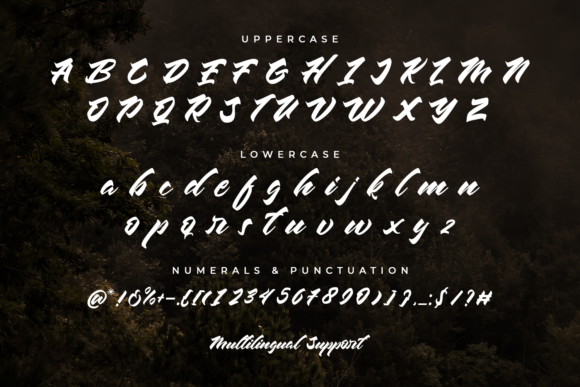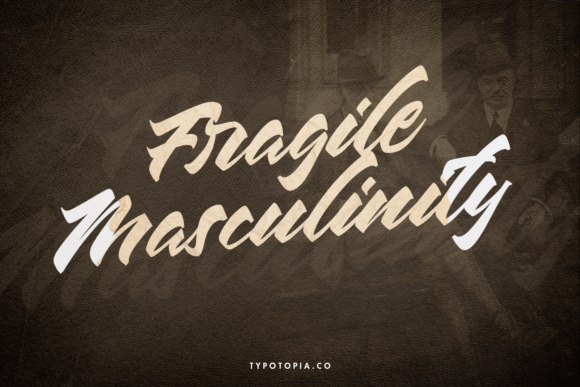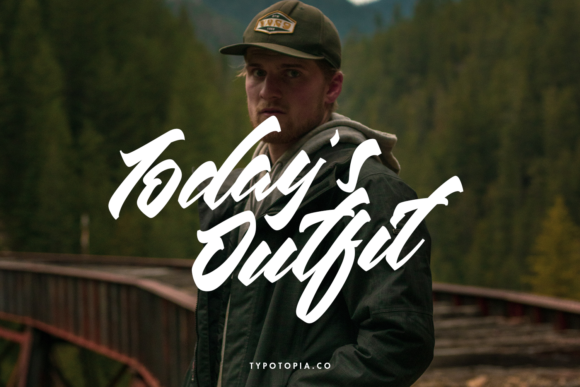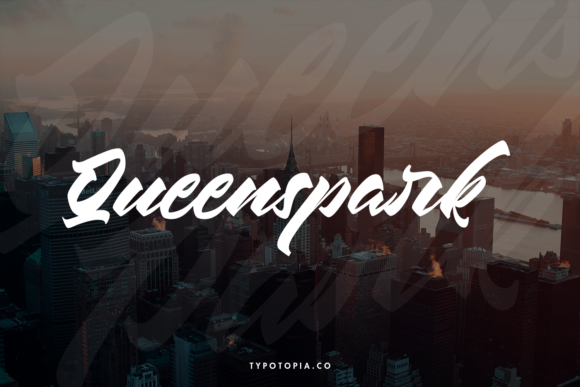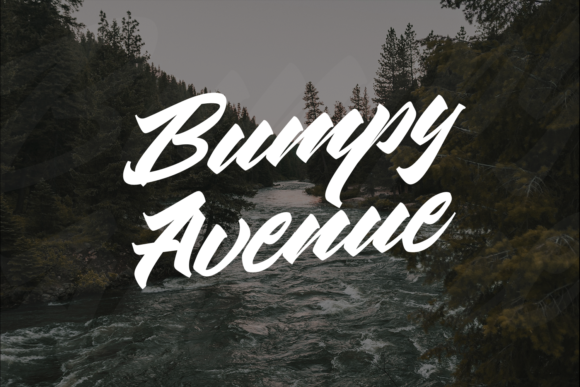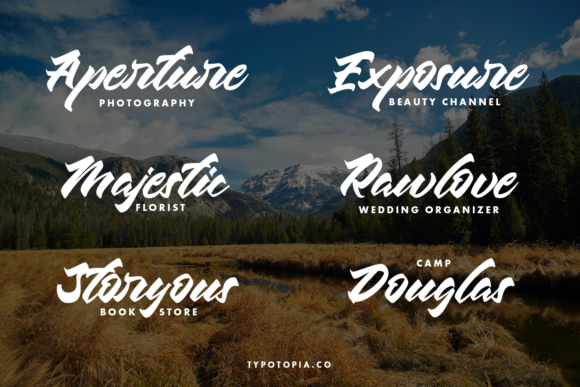
Discover the Elegance of Chesnut Font: Elevate Your Designs to New Heights
Are you on the hunt for a font that exudes sophistication, elegance, and a touch of modern flair? Look no further than the stunning Chesnut Font. This exquisite handwritten font is meticulously crafted to capture the essence of classy calligraphic influences while infusing a contemporary twist. In this article, we’ll delve into the world of Chesnut Font, exploring its unique features, and how it can elevate your design projects to unprecedented levels.
The Birth of Chesnut Font: A Masterful Design
Chesnut Font is the brainchild of talented designers who sought to create a typeface that would seamlessly blend traditional calligraphy with modern sensibilities. The result is a font that is not only visually stunning but also remarkably versatile. Whether you’re working on a branding project, crafting a wedding invitation, or designing a logo, Chesnut Font is poised to become your go-to choice.
What Makes Chesnut Font So Special?
So, what sets Chesnut Font apart from other fonts in the market? Here are a few key features that make it a standout:
- Classy Calligraphic Influences: Chesnut Font boasts elegant, flowing lines that evoke the sophistication of traditional calligraphy.
- Contemporary Twist: Despite its classic roots, Chesnut Font feels refreshingly modern, making it perfect for designers who want to create something new and exciting.
- Handwritten Charm: The font’s handwritten nature adds a touch of warmth and personality to any design, making it ideal for projects that require a more personal touch.
- Versatility: Chesnut Font is incredibly versatile, suitable for a wide range of applications, from logos and branding to invitations, packaging, and more.
Why Designers and Crafters Love Chesnut Font
Chesnut Font has quickly become a favorite among designers and crafters, and for good reason. Here are a few reasons why:
- Ease of Use: Chesnut Font is incredibly easy to use, even for those who are new to design. Its clean lines and intuitive flow make it simple to work with, saving you time and effort.
- Customization: The font’s flexibility allows for endless customization options, enabling you to tailor it to your project’s specific needs.
- Unique Look: Chesnut Font’s distinctive style ensures that your designs will stand out from the crowd, giving you a competitive edge in a crowded market.
How to Use Chesnut Font in Your Designs
Ready to fall in love with Chesnut Font and bring your projects to new heights? Here are a few tips on how to incorporate it into your designs:
- Pair it with Neutrals: Chesnut Font pairs beautifully with neutral colors like white, black, and gray. Try combining it with a bold color to create a striking contrast.
- Experiment with Sizes: Don’t be afraid to experiment with different font sizes to create visual interest and hierarchy in your designs.
- Add Decorative Elements: Consider adding decorative elements like ribbons, flowers, or other embellishments to give your designs an extra touch of elegance.
In conclusion, Chesnut Font is a true gem in the world of typography. Its exquisite design, classy calligraphic influences, and modern twist make it the perfect choice for designers and crafters looking to elevate their projects to new heights. With its ease of use, versatility, and unique look, Chesnut Font is sure to become a staple in your design toolkit. So why wait? Fall in love with Chesnut Font today and discover a world of limitless creative possibilities!